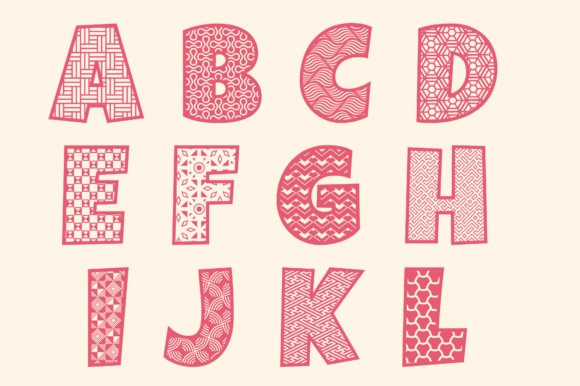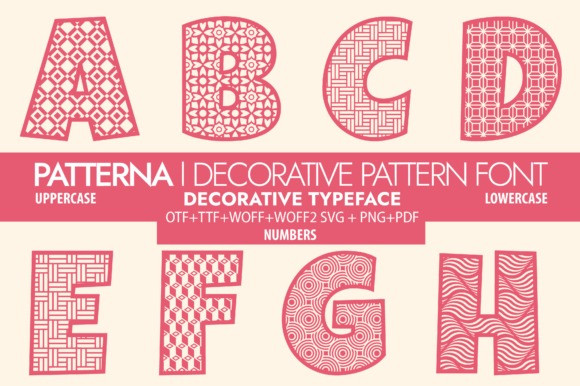
PATTERNA DECORATIVE FONT
Patterna Decorative Font is a uniquely designed and chic decorative font. It features thick letters and cute touches and it most certainly will elevate a wide range of creations.